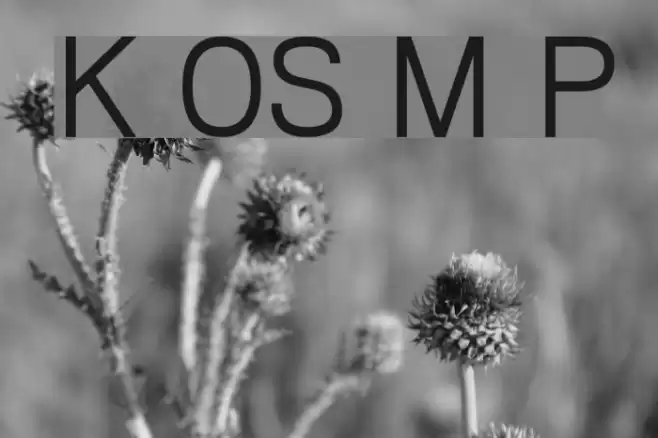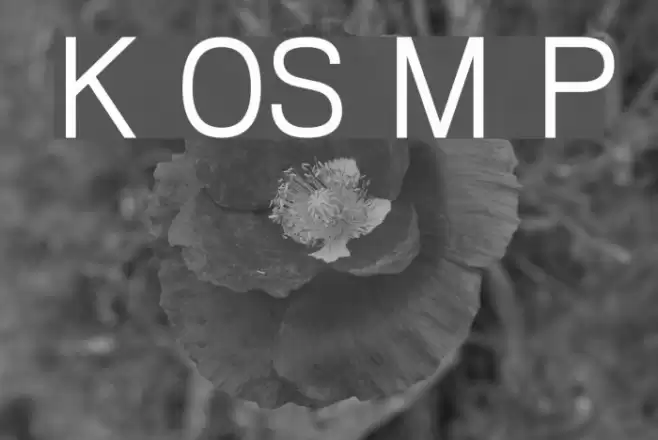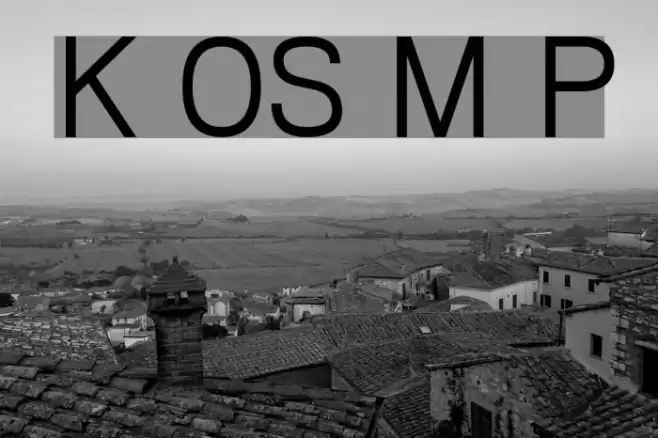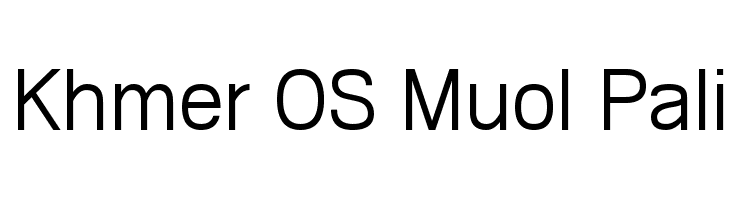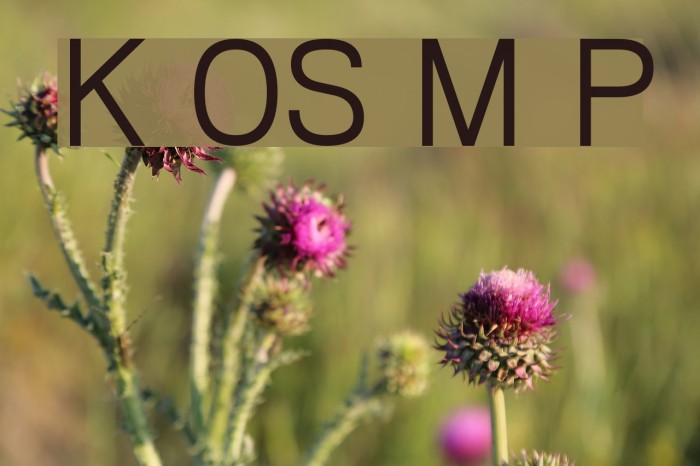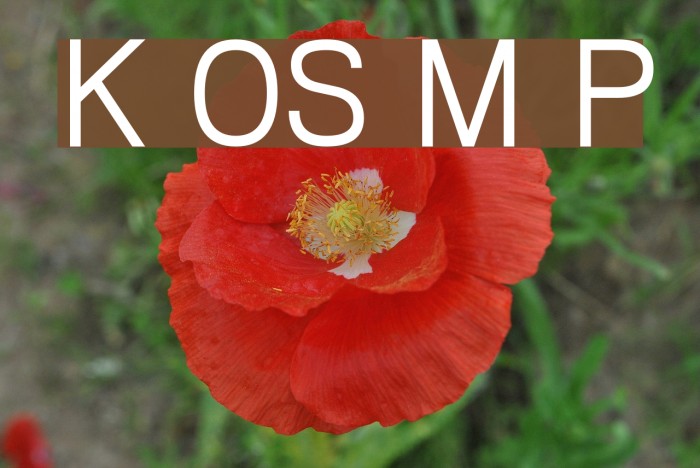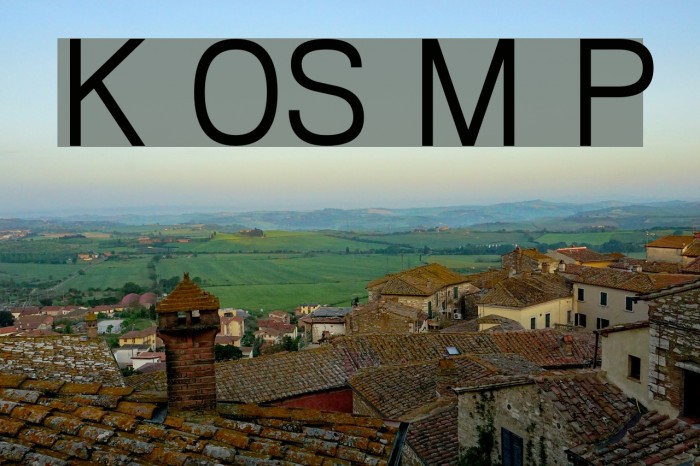
Khmer OS Muol Pali
This font features a clean and modern sans-serif design, characterized by its simplicity and readability. The uppercase and lowercase letters are well-proportioned, with a consistent stroke width that gives a uniform appearance. The numerals are clear and distinct, making them easily legible. Special characters are included, maintaining the same design ethos with a straightforward and uncluttered look. The overall style is versatile, suitable for a wide range of applications from digital to print media.
A clean and modern sans-serif font with excellent readability.
- Proposed Projects: Ideal for web design, branding, corporate materials, and user interfaces.